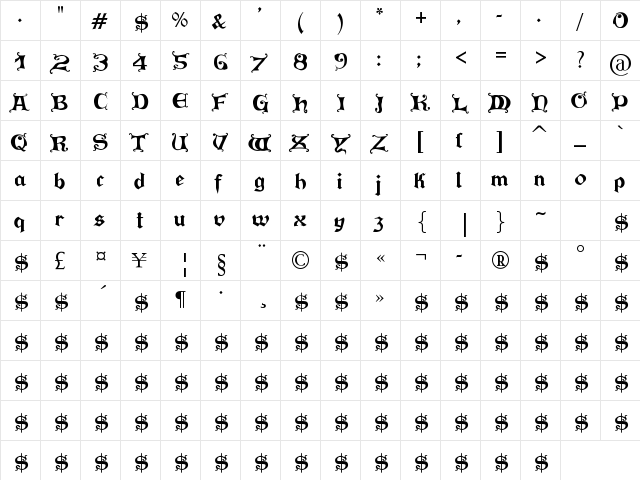
Press Gutenberg Regular
| Foundry | Galdino Otten |
Design Context for Press Gutenberg Typeface
Press Gutenberg is a composed and adaptable typeface that performs quietly and consistently across a wide range of design contexts.